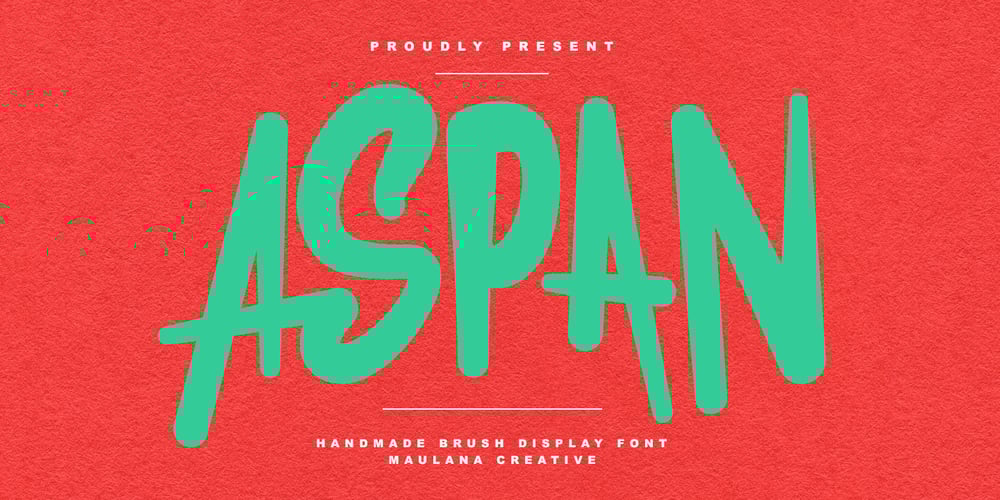
MC Aspan Font Family was designed by Gilang Maulana and published by Maulana Creative. MC Aspan contains 1 styles and family package options. Aspan handmade brush display font, fun character with alternates and ligatures. To give you an extra creative work. Aspan handmade brush display font support multilingual language.–UppercaseMany Thanks,Maulana Creative